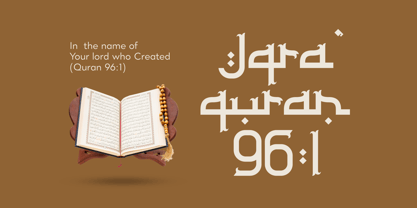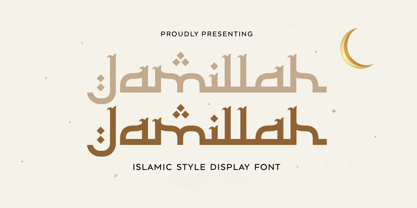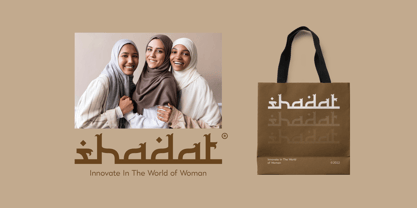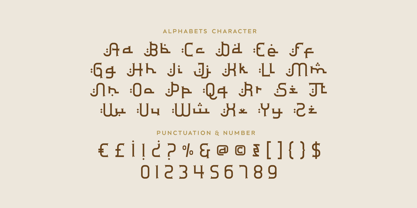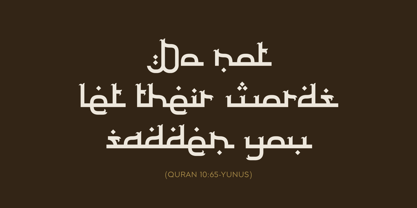
Jamillah
by Imoodev
The Jamillah Font Family was designed by Aulia Savira Putri and published by Imoodev. Jamillah contains 1 styles. More about this family
Jamillah is an arabic font that seamlessly blends traditional Arabic calligraphic influences with modern geometric shapes, resulting in a unique and visually captivating design. Each character in Jamillah reflects the timeless art of calligraphy, echoing the intricate motifs and patterns found in ancient manuscripts and adorned with decorative accents such as dots and curved strokes. Designed with Latin characters, it ensures international readability without requiring familiarity with Arabic script. This font is particularly well-suited for various creative applications, including branding, packaging, headlines, logos, wedding designs, social media posts, advertisements, product packaging, product designs, labels, photography, greeting cards, book covers, posters, Islamic event promotions, and a wide range of design or artistic projects with an Islamic or cultural theme.
Designers: Aulia Savira Putri
Foundry: Imoodev